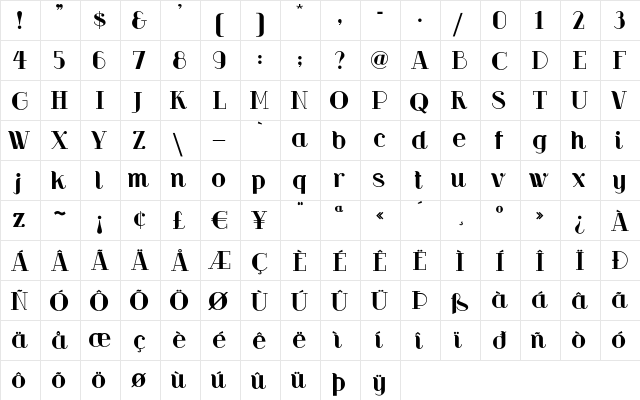
RiotSquad Regular
Design Context for RiotSquad Typeface
RiotSquad is a composed and adaptable typeface that performs quietly and consistently across a wide range of design contexts.